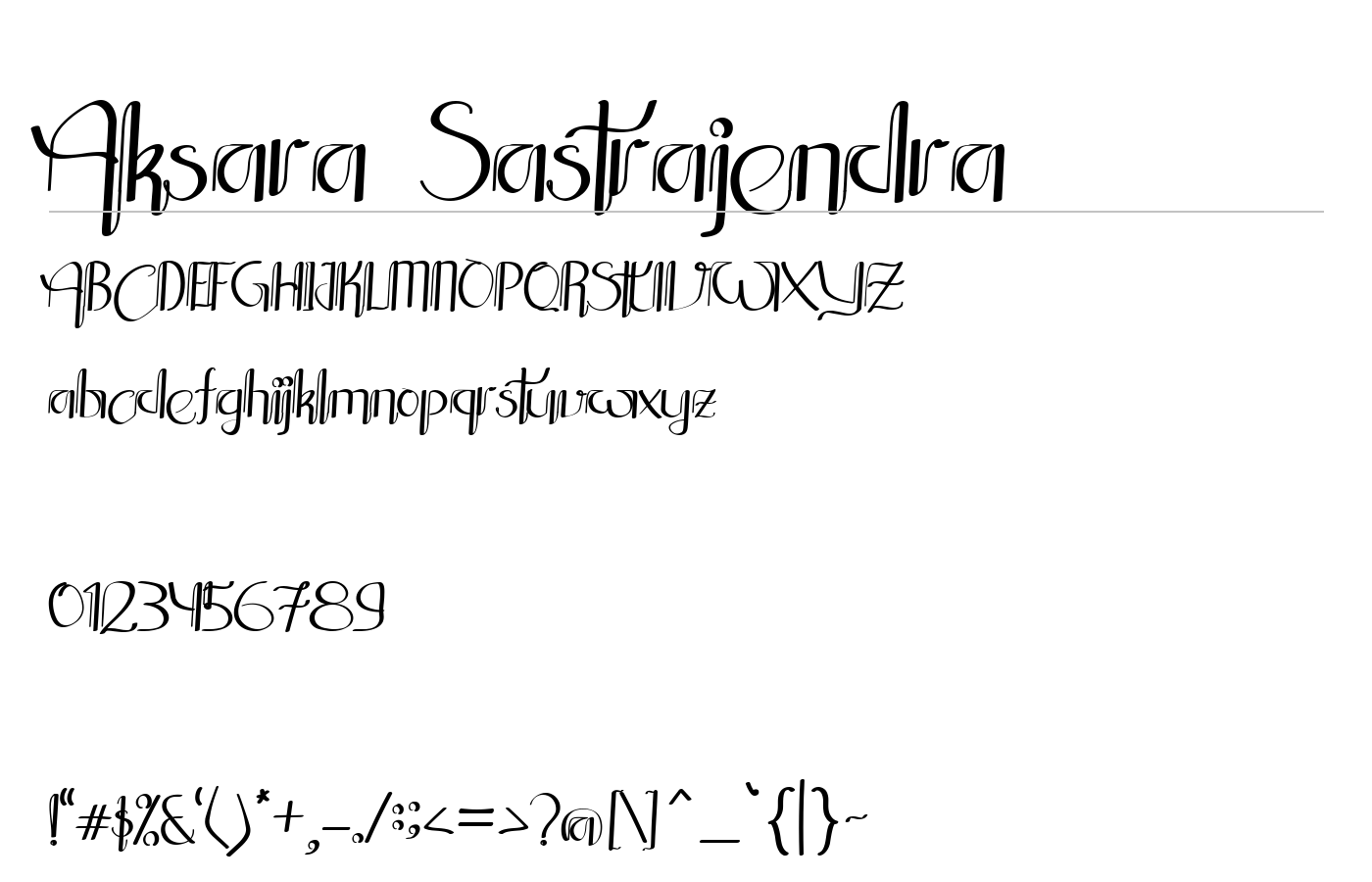
Aksara Sastrajendra is a delicate and artistic script-inspired font with tall, slender letterforms that combine both sharp and flowing strokes, giving it a unique, hand-drawn elegance. Its narrow width and whimsical curves evoke a sophisticated yet playful personality, making it perfect for creative projects, branding, and display use where a distinctive, refined touch is desired. This font stands out in headlines, logos, and packaging that aim for an artistic, stylish impression.
Aksara Sastrajendra Font
About Aksara Sastrajendra Font